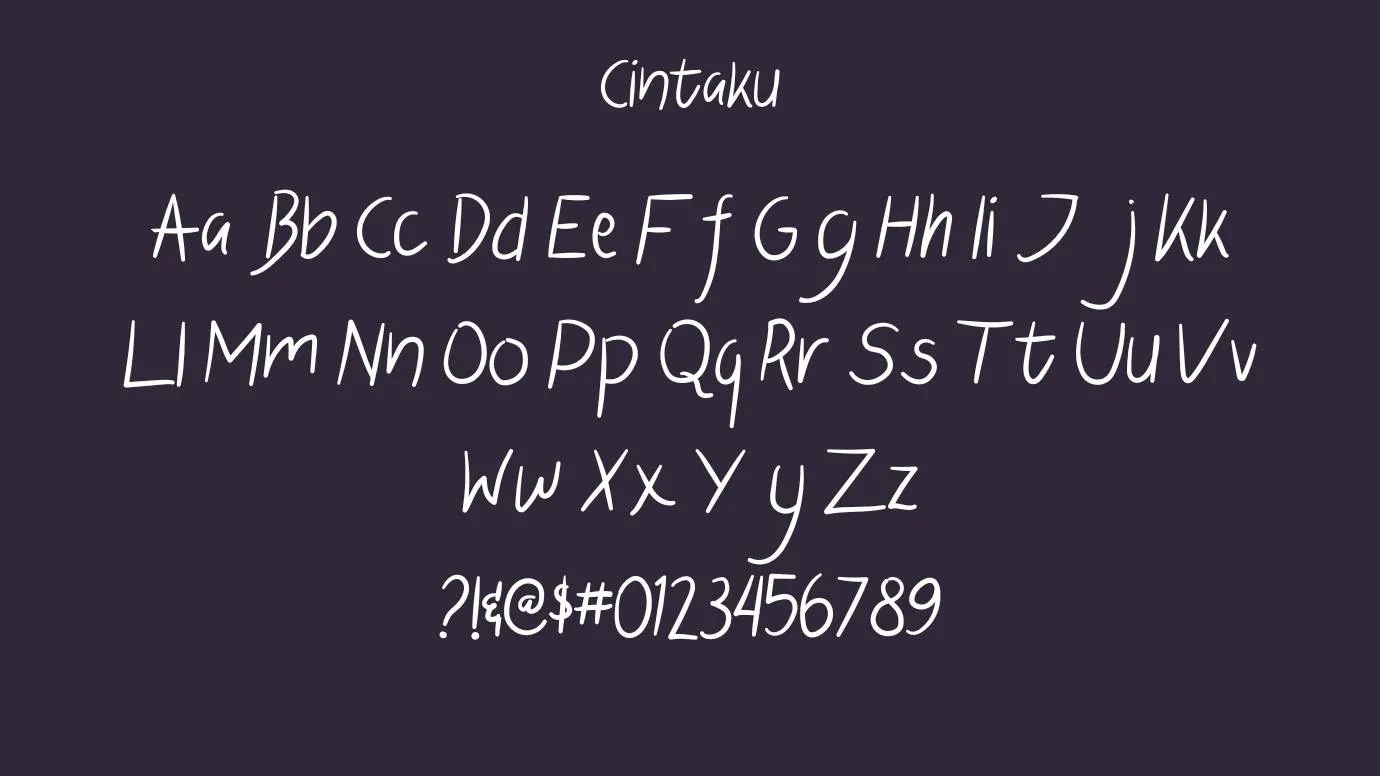
Cintaku Font is a very friendly handwritten typeface that was designed by Soraya Nafisah. The look of this font is very attractive and you can make all personal and commercial projects by using this font. It was mostly used in the 20th century for making different projects.